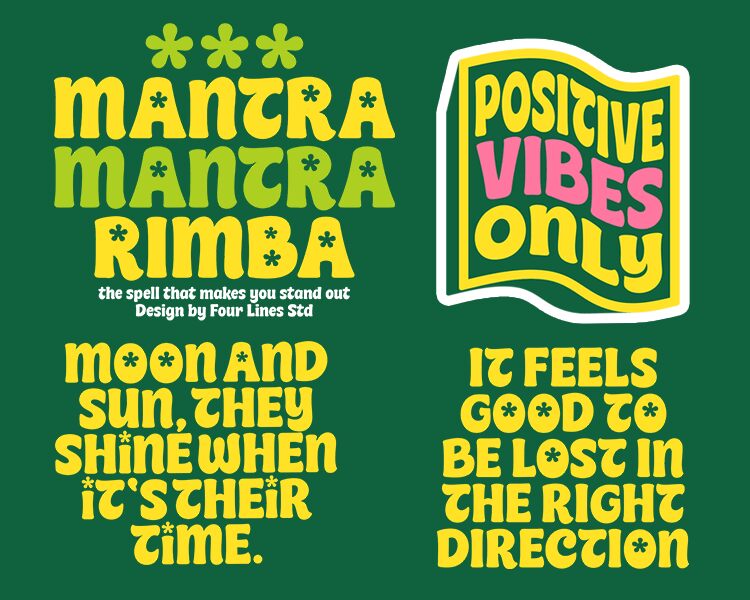
Mantra Rimba font by Four Lines is a free display typeface with a friendly and whimsical flair. Its retro style contains striking decorative elements that can be seen in each letter design, making it impossible to miss the font’s vibe. The bold letters make it a good choice for projects that capture attention.
Use Mantra Rimba in logos and print branding which can be applied to packages, labels, and magazines. Decorate album covers or add it to posters by writing down artist names or event details. Other ideas include social media ads such as Instagram posts, stories graphics on Snapchat, or TikTok videos.